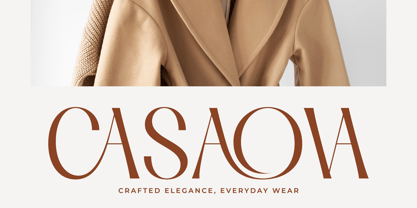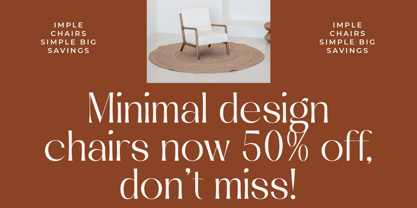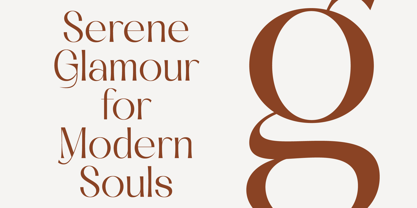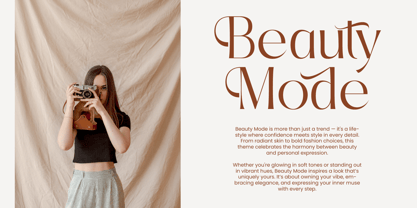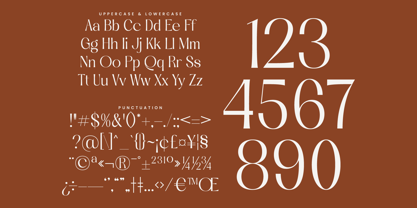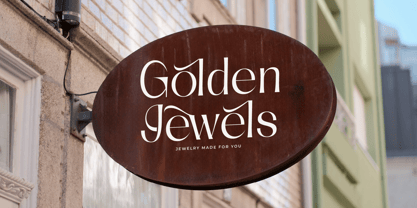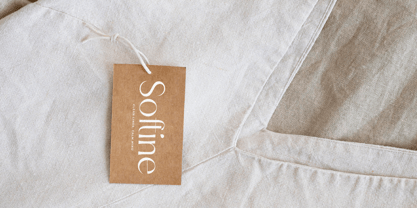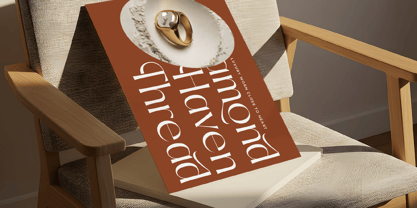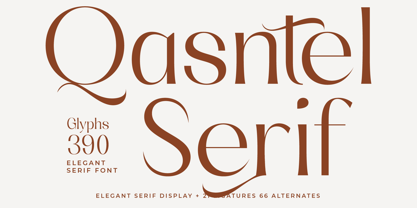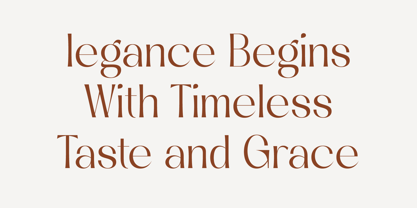
Qasntel
by Timelesstype Studio
The Qasntel Font Family was designed by Heru Utama Putra and published by Timelesstype Studio. Qasntel contains 2 styles.
Qasntel - Elegant Serif Display , from Timelesstype, Suitable for any projects such as: logos, branding projects, homeware designs, product packaging, mugs, quotes, posters, shopping bags, t-shirts, book covers, name card, invitation cards, greeting cards, label, photography, watermark, special events, and all your other luxury and beautiful projects that need a Luxury Serif taste.